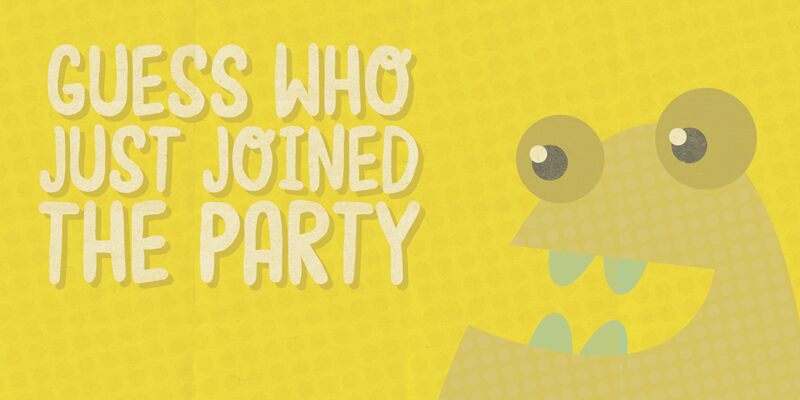
Moonfish, a captivating display font created by designer Jakob Fischer of pizzadude.dk, effortlessly blends magic and fantasy. With its rounded corners and edges, this condensed typeface leaves a smooth, highly legible impression. Moonfish's alternate upper- and lowercase letters, along with swashy alternates for all lowercase, add a delightful touch of whimsy to any design.
This versatile font lends itself well to a variety of applications, from playful children's books and educational materials to inviting branding and packaging designs. Moonfish's distinctive style and charm make it an excellent choice for projects seeking to evoke a sense of enchantment, wonder, and lighthearted appeal.